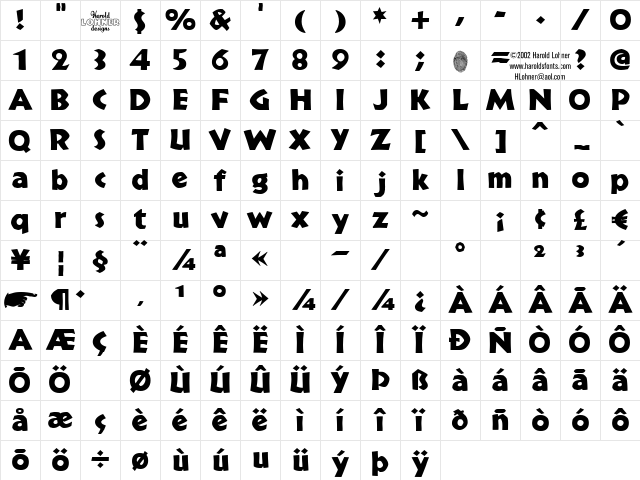
BrideRegular Regular
Copyright: Bride [of the Monster] computer font v2.0 ©2002 Harold Lohner "  " www.haroldsfonts.com Lowercase letters are designed to work with Rudolf Koch's classic Neuland font.
Design Context for BrideRegular
BrideRegular is a composed and adaptable typeface that performs quietly and consistently across a wide range of design contexts.